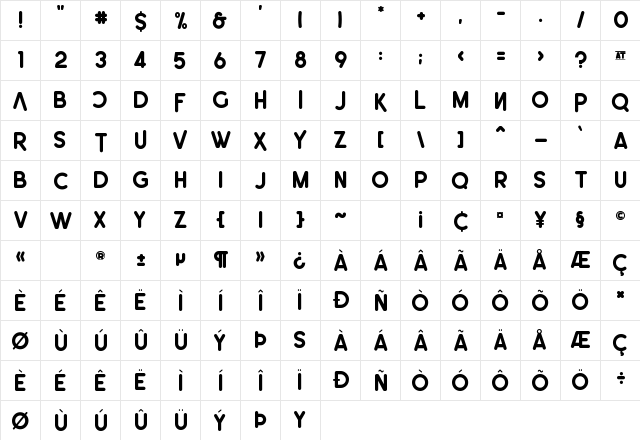
Leo Rounded Bold
Design Context for Leo Rounded Typeface
Leo Rounded softens its letterforms with rounded terminals, giving it an approachable, friendly quality that works well in consumer-facing and digital contexts. Its bold stroke weight gives it real presence on the page.
Well-suited to UI design, mobile interfaces, and any brand that wants approachability without sacrificing clarity.
Font Pairing: Pairs well with a rounded or humanist sans for body copy, maintaining the friendly tone without relying on Leo Rounded to carry extended reading.
Pro Tip: Use Leo Rounded for UI elements, app interfaces, and anywhere a friendly, approachable tone needs to be maintained without sacrificing clarity.